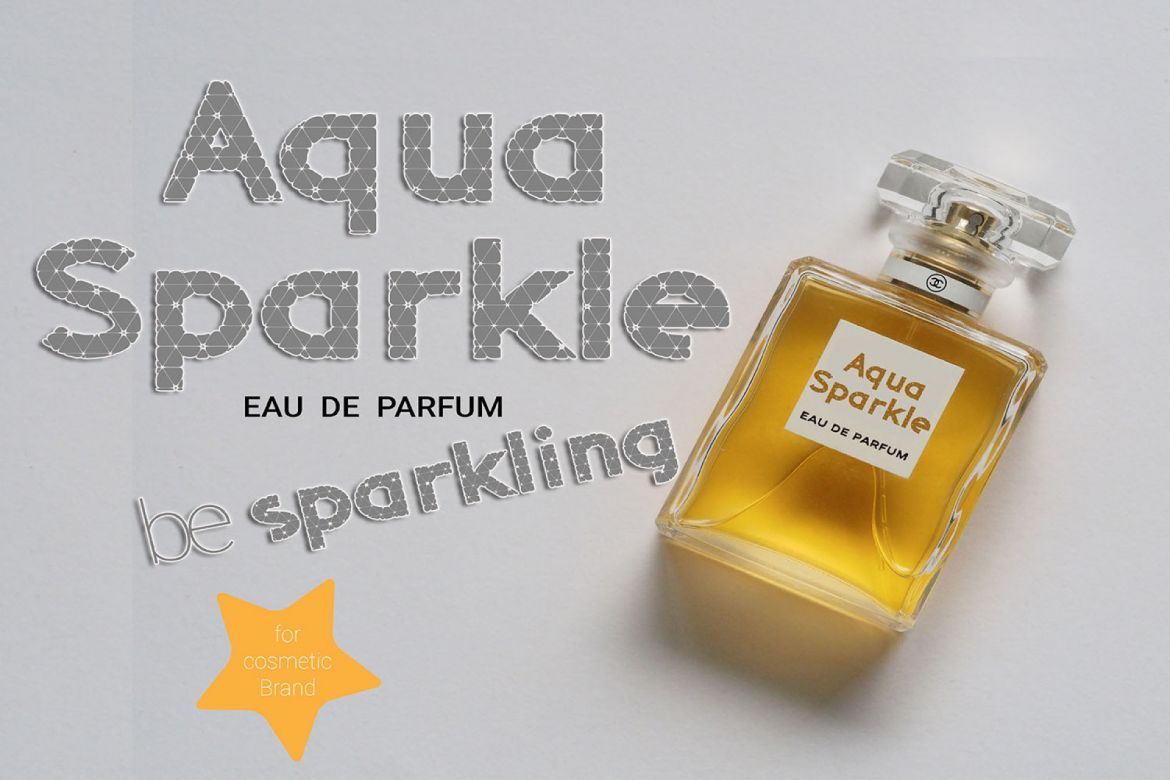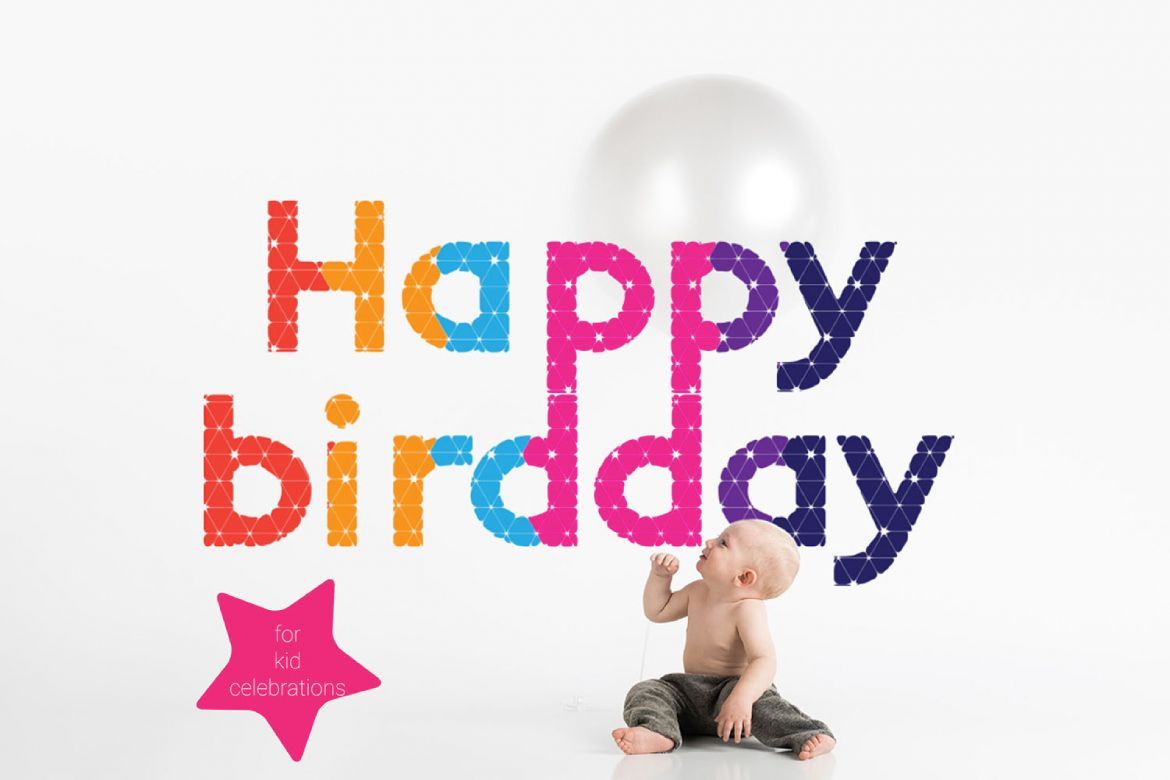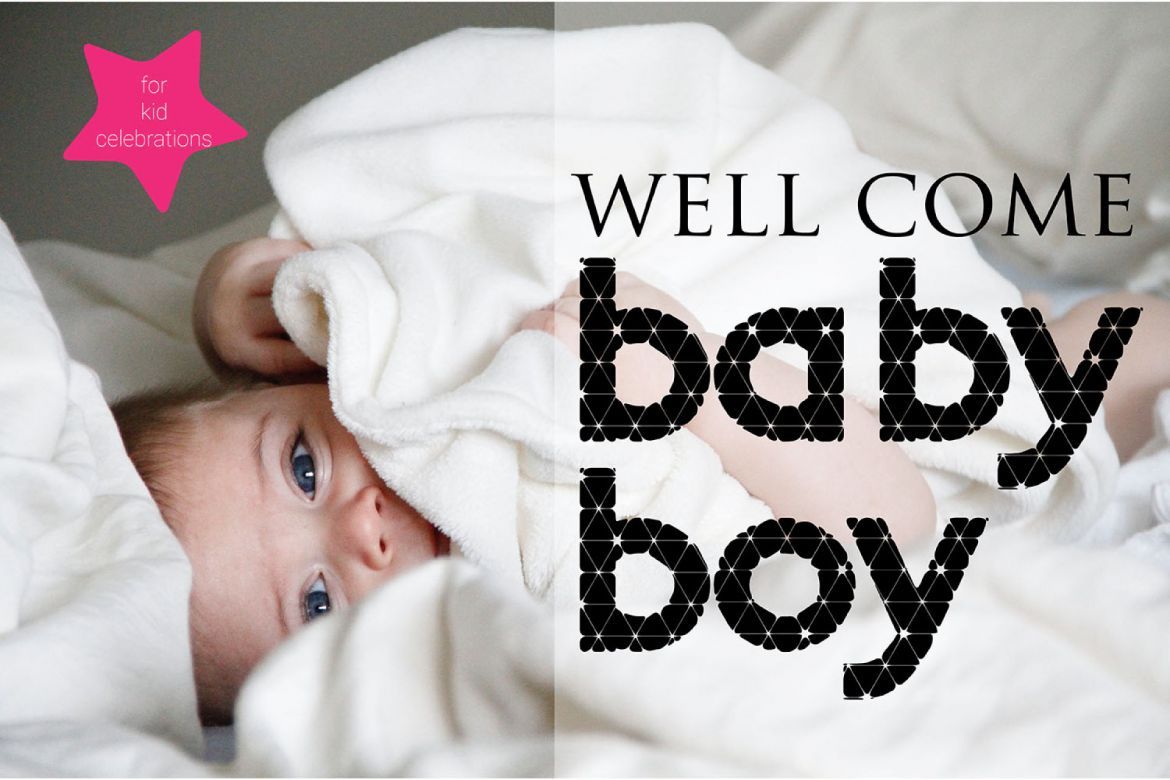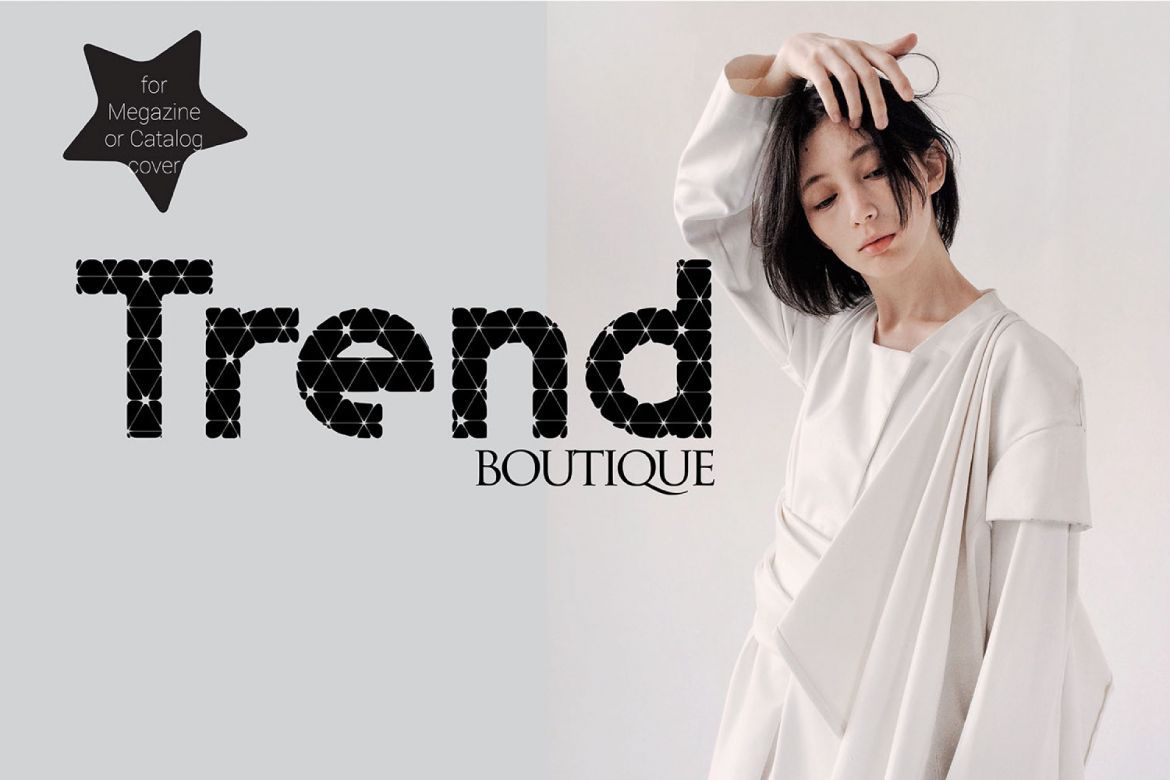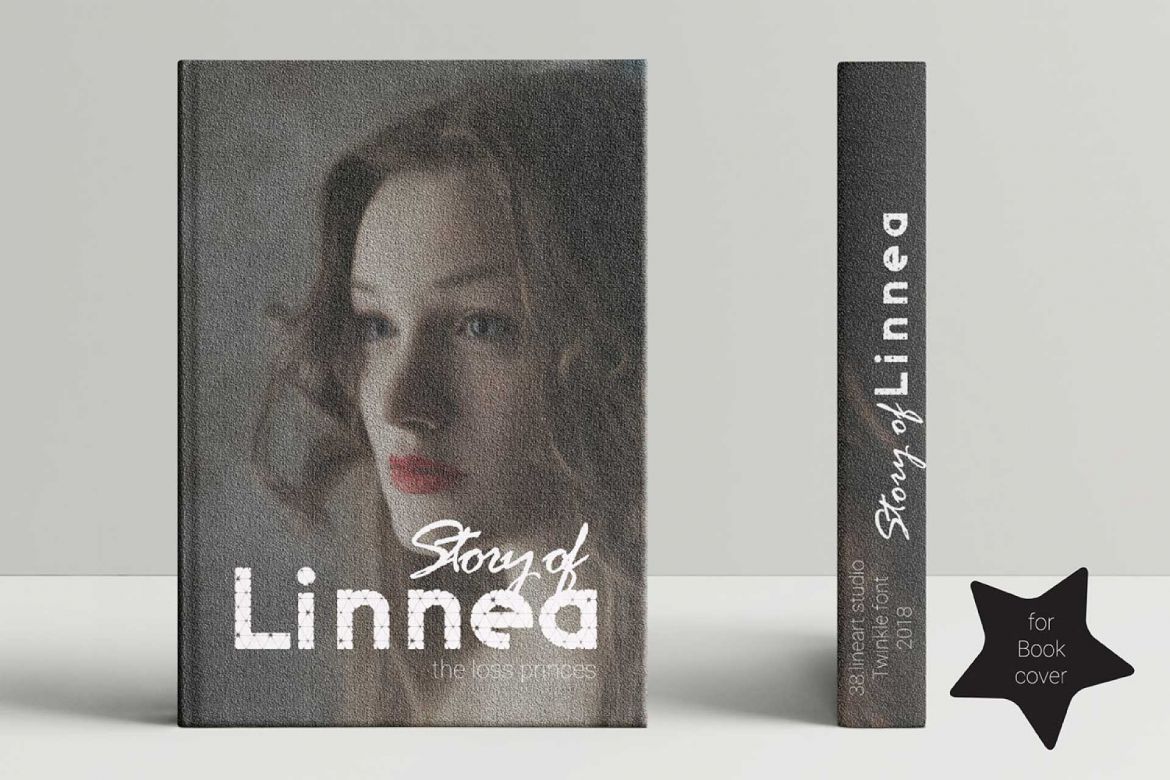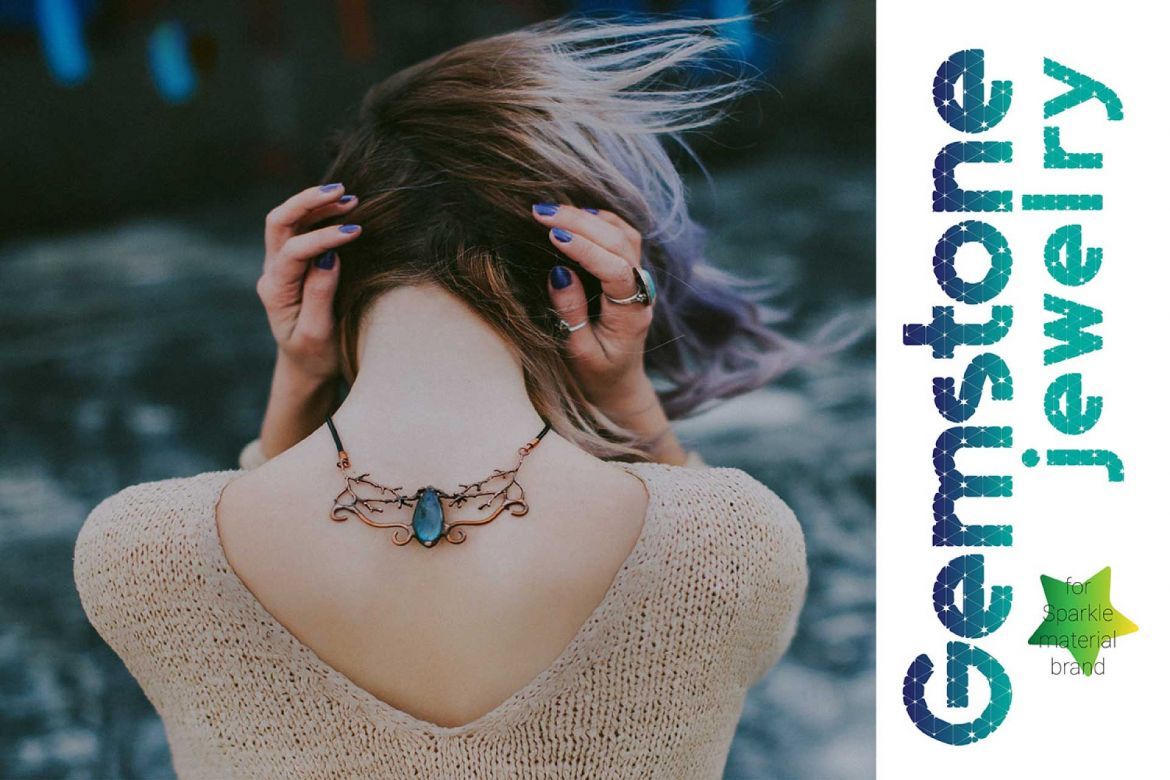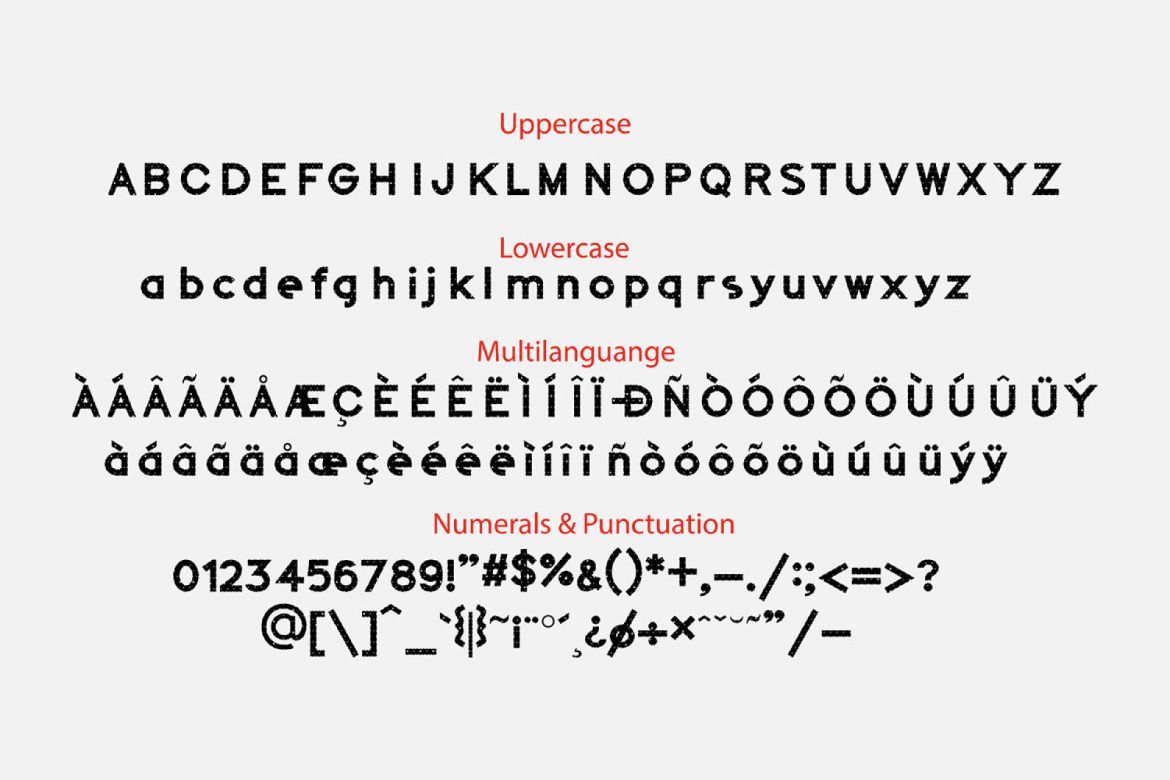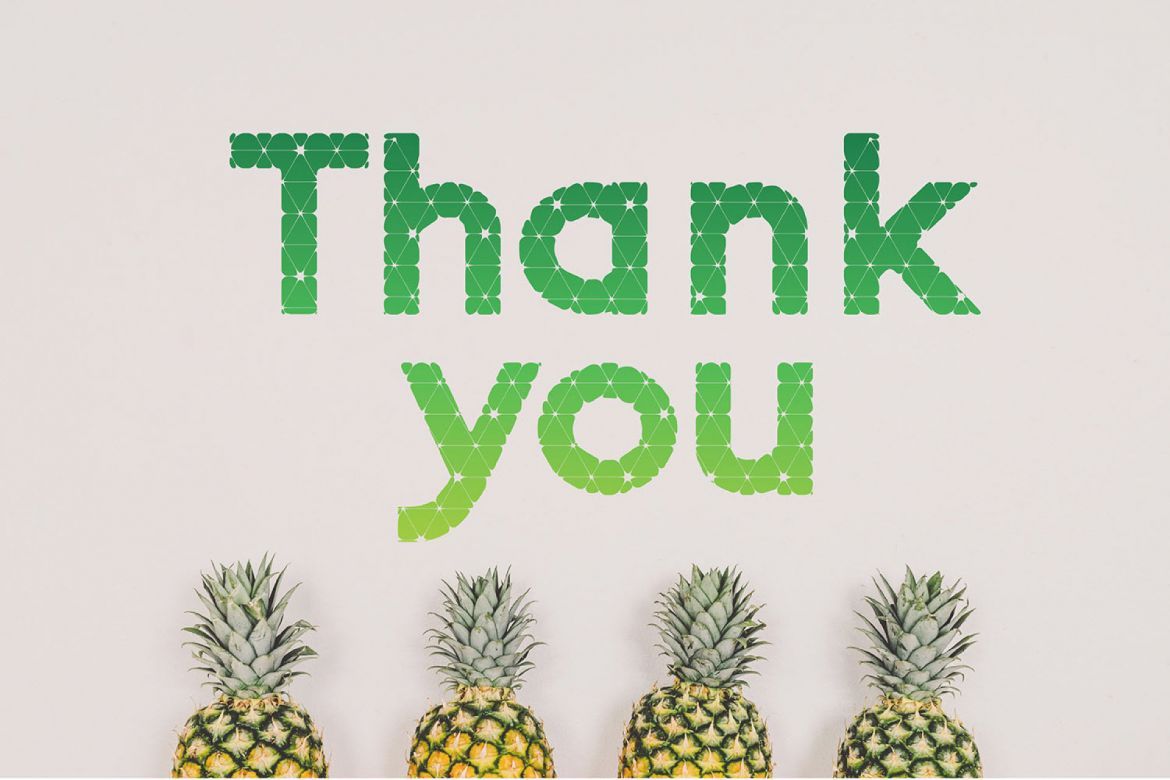
Twinkle Display Font
Twinkle: is a font with a lustrous theme, this font is perfect for sparkling products, such as water rides, gems and stars. Twinkle with star concept will look good to be used for the celebration of children like birthday, a celebration of a new baby born as well as for children's tale book title. Letter by letter can also be cut to make your home craft.
Twinkle will be graceful the impression when the display monochrome, but also will be a cheerful impression when applied in full colours.